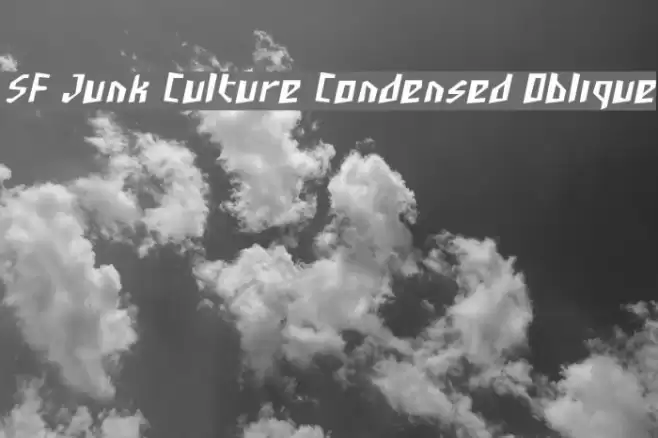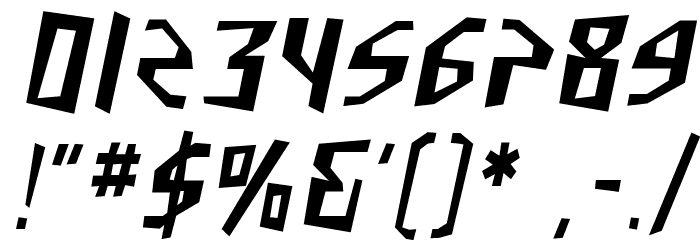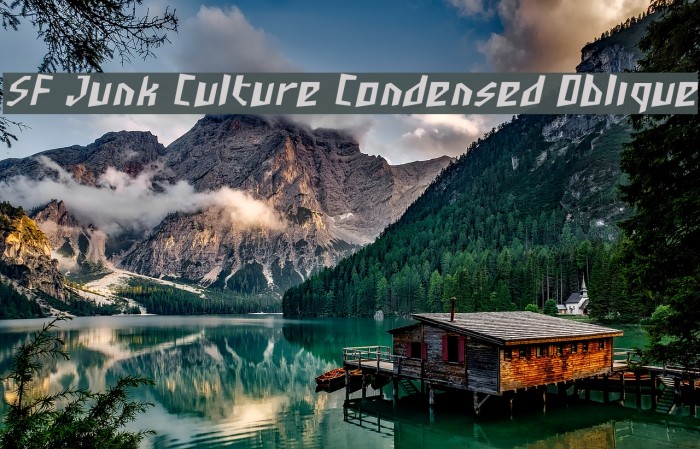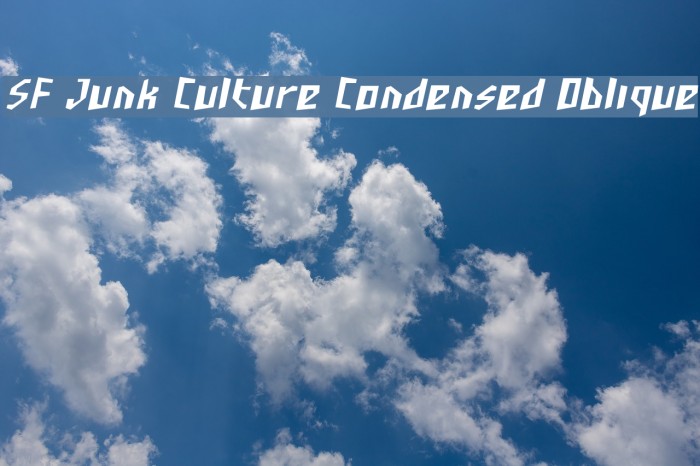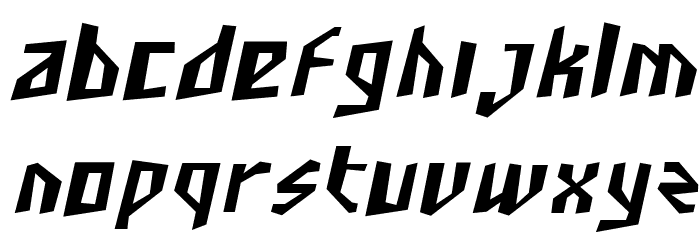
SF Junk Culture Condensed Oblique Font
SF Junk Culture Condensed Oblique Description
This font features a bold and angular design, characterized by its sharp edges and dynamic slant. The condensed letterforms create a sense of urgency and movement, making it ideal for attention-grabbing headlines. The oblique style adds a modern twist, while the geometric shapes give it a futuristic feel. The uppercase and lowercase letters maintain a consistent style, with numerals and special characters following the same angular theme. This font's unique aesthetic is perfect for projects that require a bold statement.
A bold, angular, and condensed oblique font with a modern, dynamic style from Futuristic fonts.
- Proposed Projects: Ideal for posters, logos, video game graphics, and edgy branding materials.
- Character Spacing: Tight